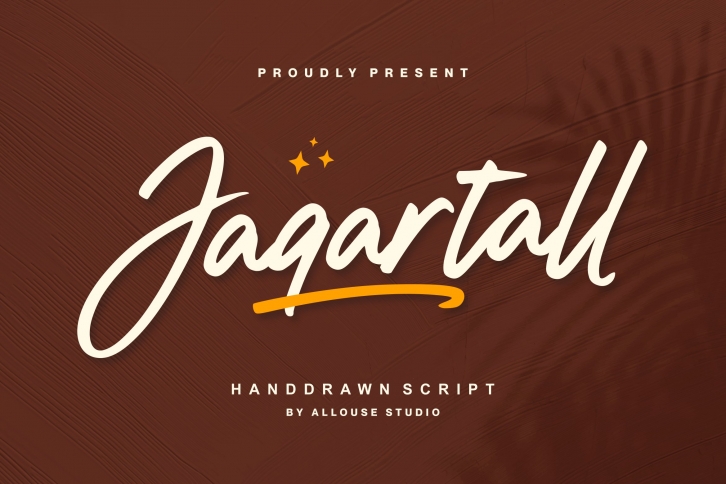
Jaqartall is a trendy and unique font with an authentic style. It was designed by Allouse Studio and it's a great choice for creative people who need such a font. It was released on December 23, 2021 and the file size is 1.99 MB. Jaqartall will add an organic vibe to any design idea!